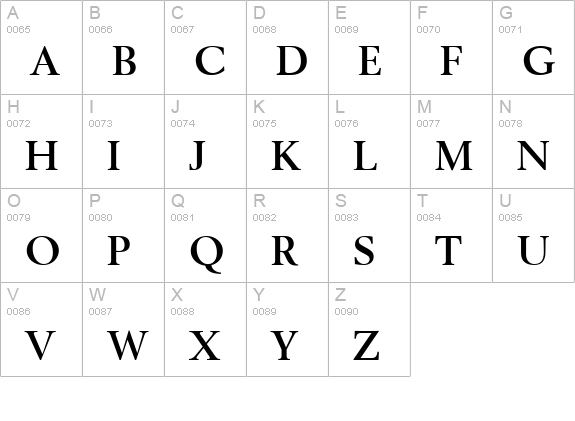
Cortex SSi Bold is a strong, high-contrast variant in the Cortex typeface family \xE2\x80\x94 well suited to headlines, attention-grabbing titles, and strong calls-to-action.
Cortex SSi Bold is a striking and modern font that commands attention with its bold and strong presence. Perfect for headlines, titles, and branding projects, this font exudes confidence and power. The sharp edges and clean lines give Cortex SSi Bold a sleek and contemporary look that is sure to make a statement. The best part? Cortex SSi Bold is available for free download at FontsMarket.com. This means that you can easily access this impressive font and use it in your design projects without any cost. Don't miss out on the opportunity to elevate your designs with the impactful and stylish Cortex SSi Bold font. Download it today and let your creativity shine!